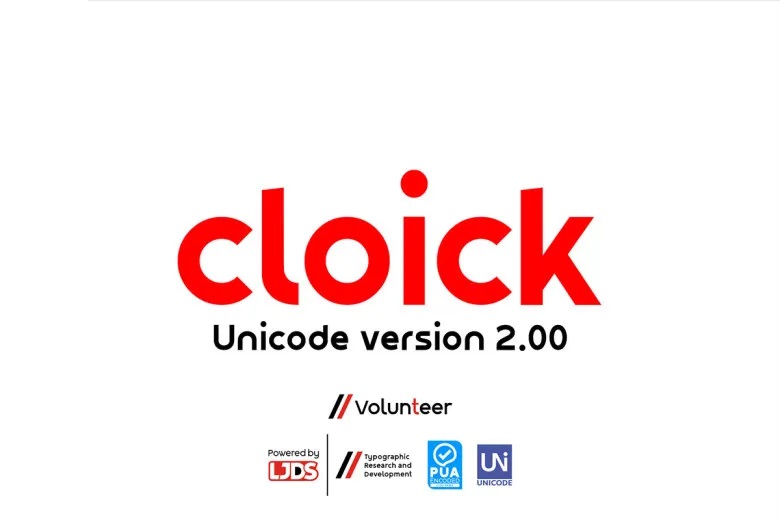
Cloick Font
Cloick Font is a well-crafted typeface that is designed specifically for logos, branding, headers, and titling. The purpose of the source is grouping a number of important languages with a style not customed to the usual.
Cloick is a very versatile and usable typeface in any business purpose, since its design is adaptable with many of the modern and simplified trends in graphic design and conceptual illustration.
Cloick Sans Serif Font